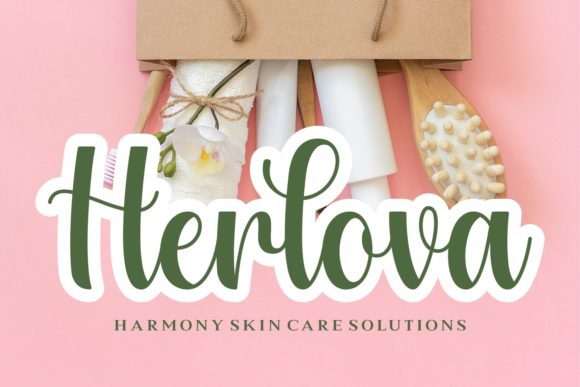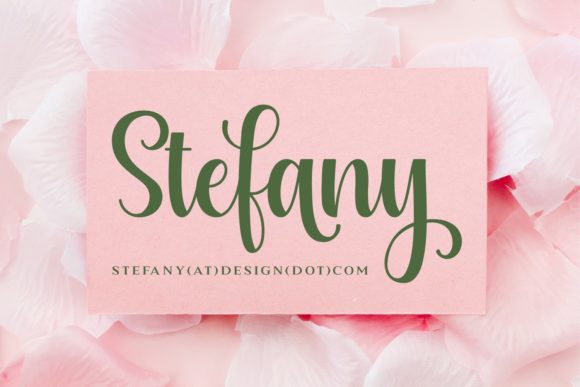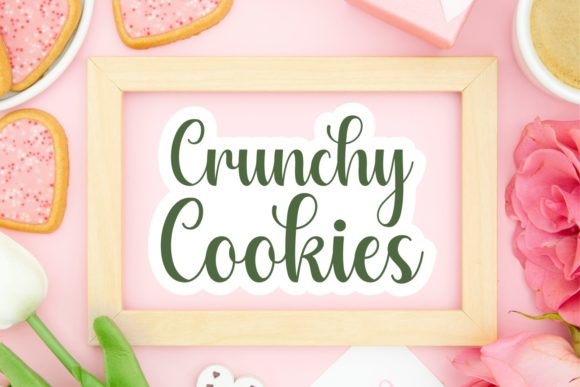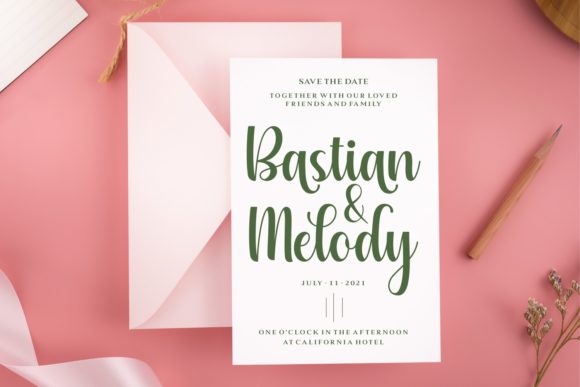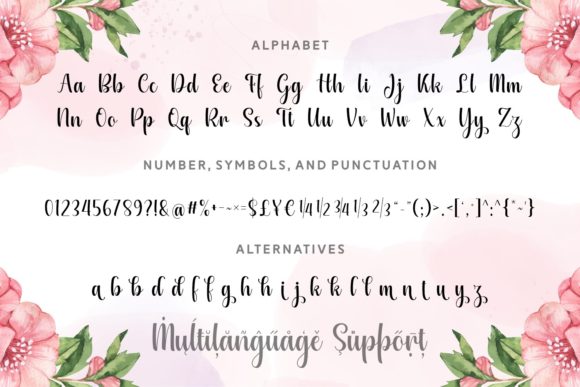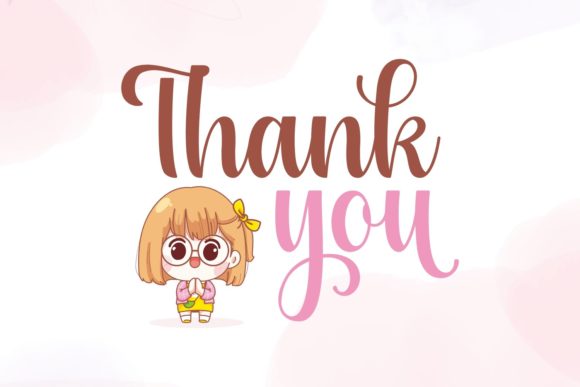
Aurelyta Font: The Perfect Calligraphy Font for Romantic Designs
Aurelyta font is a beautiful calligraphy font that exudes a romantic touch, making it an ideal choice for designers and crafters looking to add a touch of elegance to their projects. This lovely handwritten font is perfect for fashion or jewelry branding, wedding cards, birthday decorations, books, wall art, frames, and much more.
What Makes Aurelyta Font Special?
Aurelyta font is a unique and stylish calligraphy font that is sure to capture the attention of your audience. Its romantic touch makes it perfect for designs that require a touch of sophistication and elegance. Whether you’re designing a wedding card, a fashion brand’s logo, or a beautiful piece of wall art, Aurelyta font is the perfect choice.
Uses of Aurelyta Font
Aurelyta font can be used in a variety of projects, including:
- Fashion branding: Aurelyta font is perfect for fashion brands that want to add a touch of elegance to their logo or packaging.
- Jewelry branding: The romantic touch of Aurelyta font makes it an ideal choice for jewelry brands that want to convey luxury and sophistication.
- Wedding cards: Aurelyta font is perfect for wedding cards, invitations, and other wedding-related designs.
- Birthday decorations: Add a touch of elegance to your birthday decorations with Aurelyta font.
- Books: Aurelyta font can be used to create beautiful book covers, illustrations, and typography.
- Wall art: Create stunning wall art with Aurelyta font, perfect for home decor or office spaces.
- Frames: Add a touch of elegance to your frames with Aurelyta font.
Pairing Aurelyta Font with Other Design Elements
Aurelyta font can be paired with other design elements to create stunning designs. Here are a few ideas:
- Pair Aurelyta font with simple shapes and lines to create a modern and elegant design.
- Combine Aurelyta font with watercolor illustrations to create a beautiful and romantic design.
- Use Aurelyta font with gold or metallic accents to add a touch of luxury to your design.
Tips for Using Aurelyta Font
Here are a few tips for using Aurelyta font:
- Use Aurelyta font in large sizes to make a statement.
- Experiment with different colors and textures to add depth to your design.
- Pair Aurelyta font with other fonts to create a unique and interesting design.
Aurelyta font is a beautiful calligraphy font that is perfect for designers and crafters looking to add a touch of elegance to their projects. Its romantic touch makes it ideal for fashion or jewelry branding, wedding cards, birthday decorations, books, wall art, frames, and much more. With its versatility and unique style, Aurelyta font is sure to become a favorite in your design collection.